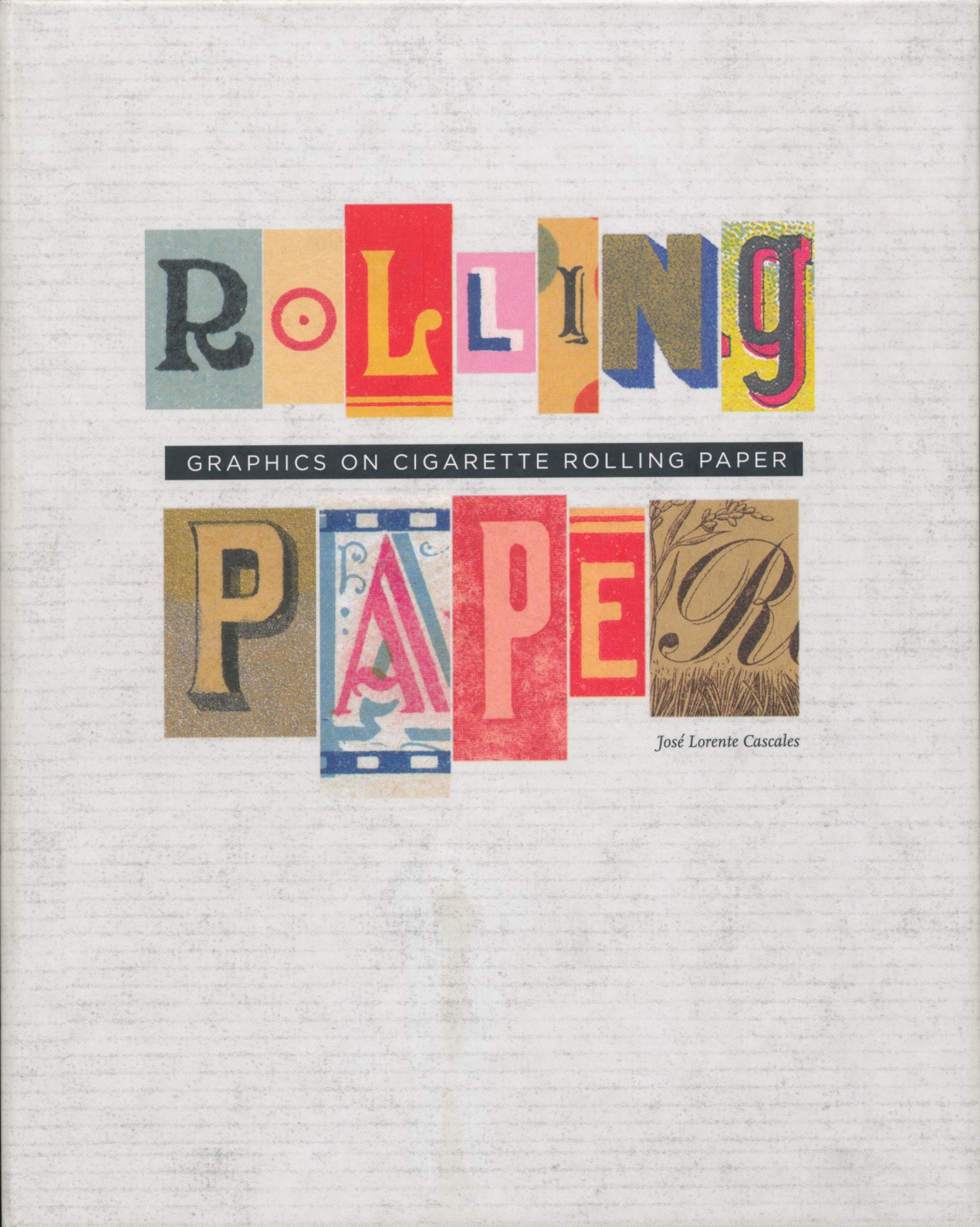
A visual journey through the evolution of graphic design via the ever interesting world of cigarette rolling paper booklets, including a sampling of more than 400 images of booklet brands ranging from the early 19th century to the present day.
The development of typography, printing techniques, packaging and illustration can all be seen in these examples, which have been separated out into different chapters : nature, places, objects, people, typography, textures and advertising.
Un voyage visuel à travers l'évolution du design graphique des emballages à papier à cigarette. Plus de 400 échantillons du monde entier du début du XIXe siècle jusqu'à nos jours.